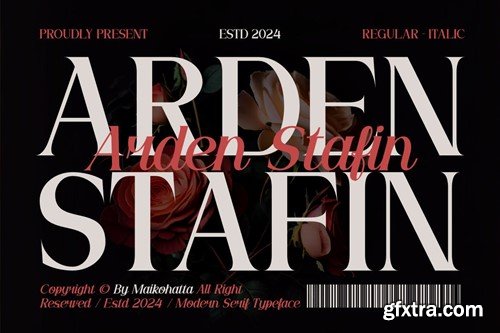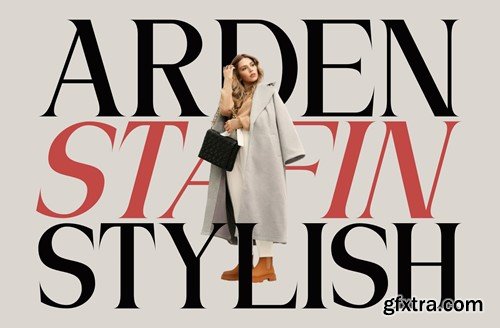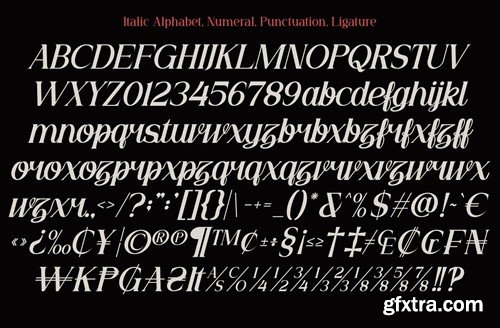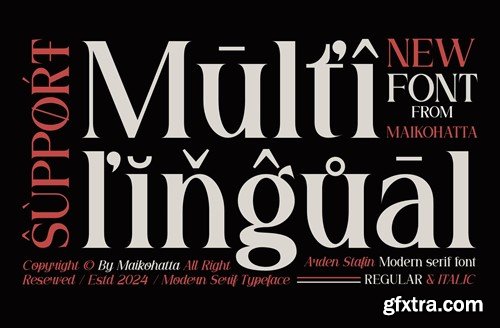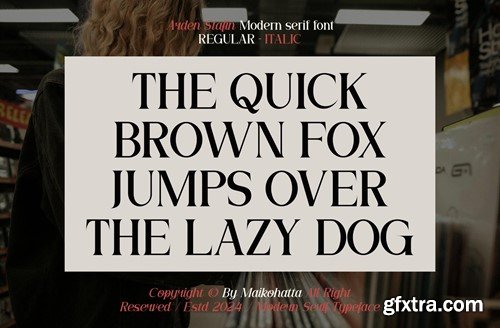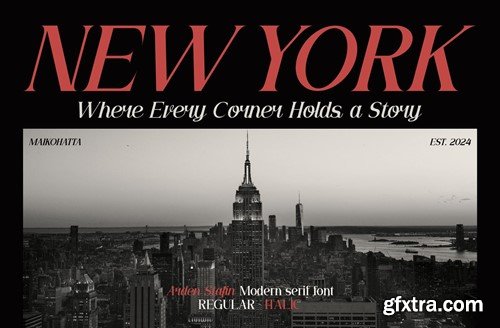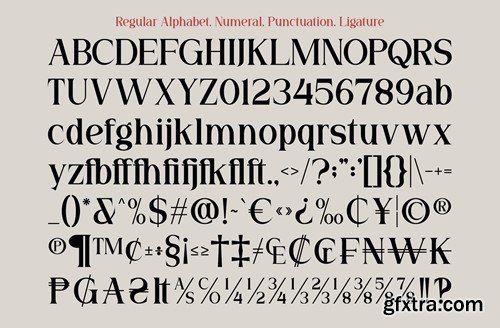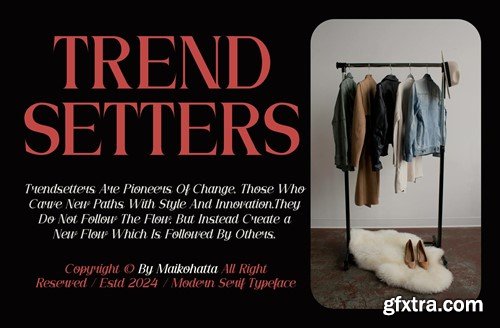
阿德恩·斯塔芬 - 现代衬线字体 7D6PFAJ
Arden Stafin - Modern Serif Typeface 7D6PFAJ
Arden Stafin - Modern Serif Typeface
Introducing our new product Arden Stafin - Modern Serif Typeface
This font features a balanced proportion of stroke thickness and fineness, creating attractive and easy-to-read visuals. This modern serif style is often characterized by a bold distinction between thick and thin lines, providing a touch that is understated but still stands out.